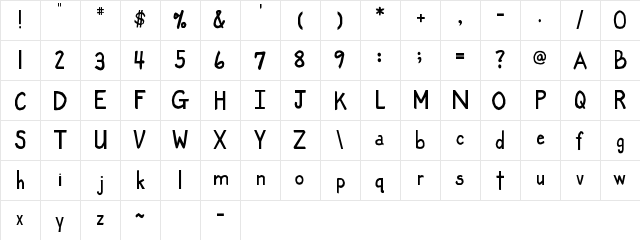
Name that Font - 1 Regular
Design Context for Name that Font - 1 Typeface
Name that Font - 1 offers clean, dependable letterforms without strong stylistic allegiance, making it a practical choice for designers who need flexibility.